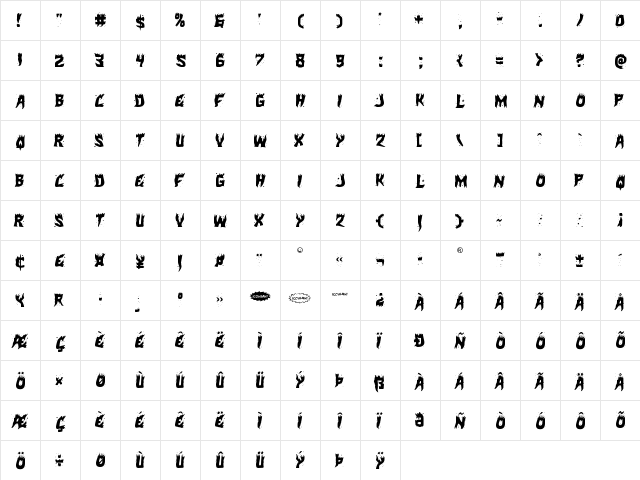
Hot Kiss Regular
Design Context for Hot Kiss Typeface
Hot Kiss is a composed and adaptable typeface that performs quietly and consistently across a wide range of design contexts.